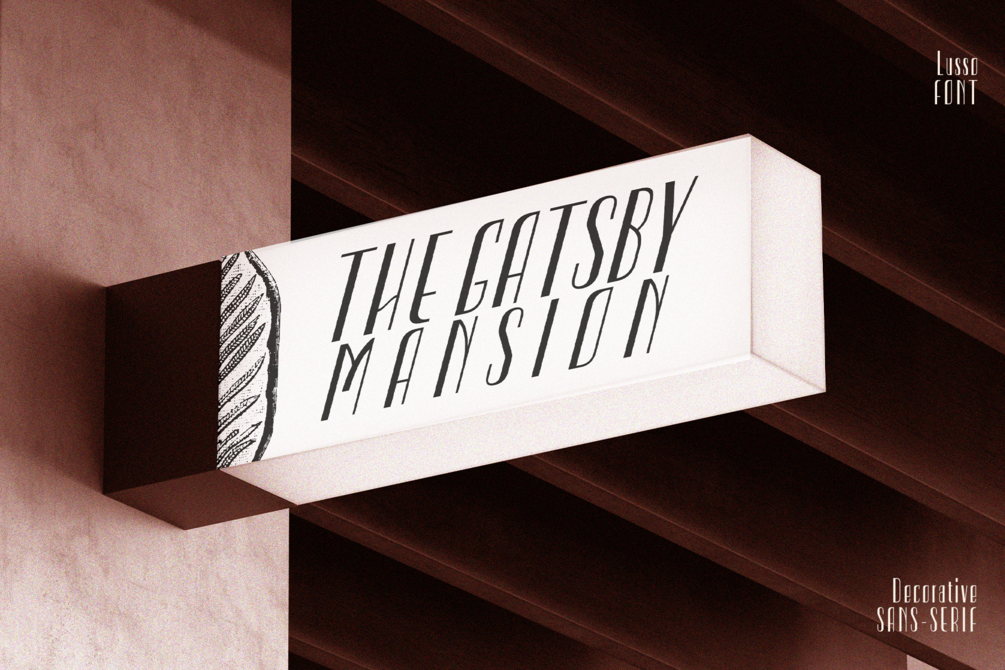
Lusso - Art Deco Decorative Sans
Lusso – is extravagant and evokes the Gatsby era with its sharp geometric shapes, bold lines, and condensed proportions. The letters in Lusso are condensed, meaning they are narrower than usual. This gives the font a Luxury, sleek and sophisticated look, and it can also help to save space in design layouts. Lusso is a great choice to be popular with designers and businesses that are looking for a luxurious and eye-catching font. Overall, Lusso is a versatile and stylish font that can be used for a variety of design projects. It is perfect for logos, branding, packaging, and invitations.
- Three Font Styles (Thin, Regular, Medium)
- Italic/Oblique font on each styles
- Alternate Glyphs